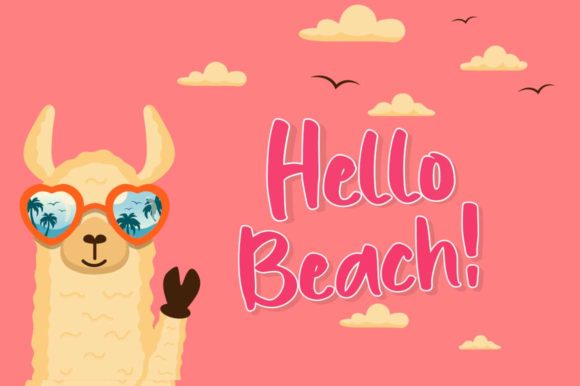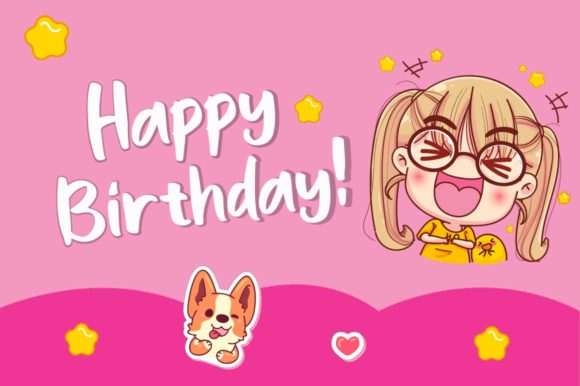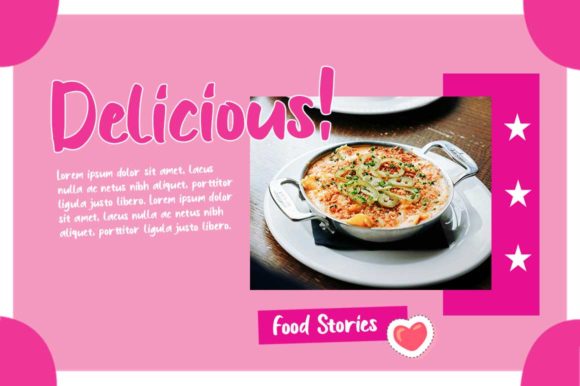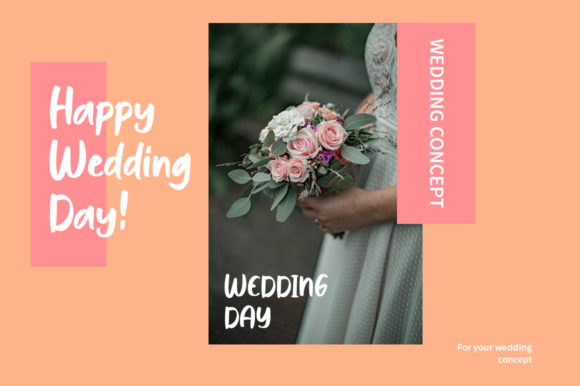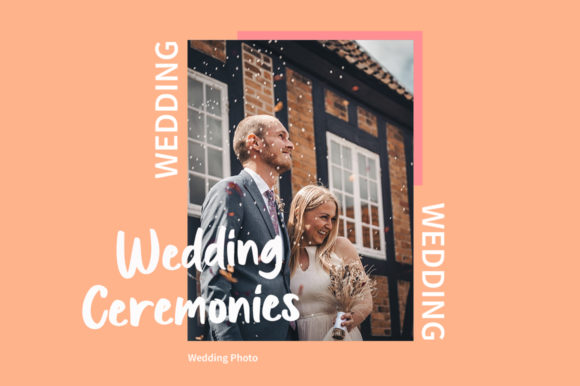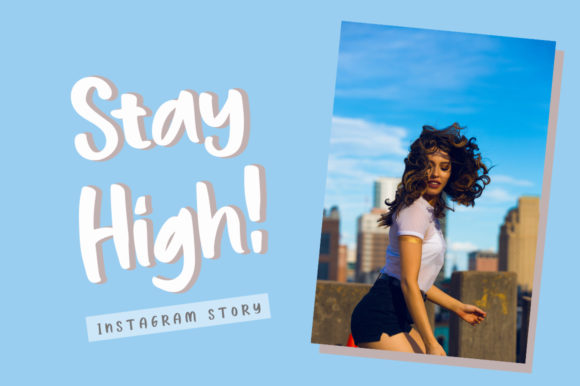
Introducing the Grand Rainbow Font: A Sweet and Versatile Handwritten Delight
Are you on the hunt for a font that can add a touch of warmth, romance, and playfulness to your design projects? Look no further than the Grand Rainbow Font! This beautiful, handwritten font is the perfect addition to any designer’s toolkit, offering a unique blend of sweetness, flexibility, and creative freedom.
The Characteristics of Grand Rainbow Font
Grand Rainbow is a sweet, all-round, and flexible handwritten font that is sure to capture your heart. Its warm, romantic, and jolly characteristics make it an ideal choice for a wide range of design projects, from wedding invitations and baby shower cards to branding and advertising materials.
One of the standout features of Grand Rainbow Font is its versatility. With its unique blend of elegant and playful strokes, this font can be used to create a wide range of designs, from sophisticated and luxurious to fun and whimsical.
Endless Variations at Your Fingertips
The Grand Rainbow Font offers endless variations, making it easy to create unique and eye-catching designs. Whether you’re looking to add a pop of color, experiment with different textures, or try out various typography styles, this font has got you covered.
With Grand Rainbow Font, you can:
- Create stunning headings and titles that grab attention
- Add a personal touch to your designs with handwritten-style text
- Experiment with different colors and textures to create unique effects
- Use the font’s flexibility to create a wide range of design styles, from elegant to playful
Grand Rainbow Font is a perfect fit for designers and crafters who are looking for a font that can help them create beautiful, eye-catching designs. Whether you’re a professional designer or a DIY crafter, this font is easy to use and offers a wide range of creative possibilities.
Some of the design projects that Grand Rainbow Font is well-suited for include:
- Baby shower cards and decorations
- Branding and advertising materials
Why Choose Grand Rainbow Font?
So why choose Grand Rainbow Font over other fonts on the market? Here are just a few reasons:
- Unique and eye-catching design: Grand Rainbow Font offers a unique and eye-catching design that is sure to grab attention.
- Versatility: This font is incredibly versatile, making it easy to use for a wide range of design projects.
- High-quality: This font is of extremely high quality, ensuring that your designs look professional and polished.
In conclusion, Grand Rainbow Font is a sweet, all-round, and flexible handwritten font that is perfect for designers and crafters who are looking for a unique and versatile design solution. With its warm, romantic, and jolly characteristics, endless variations, and ease of use, this font is sure to become a favorite in your design toolkit.